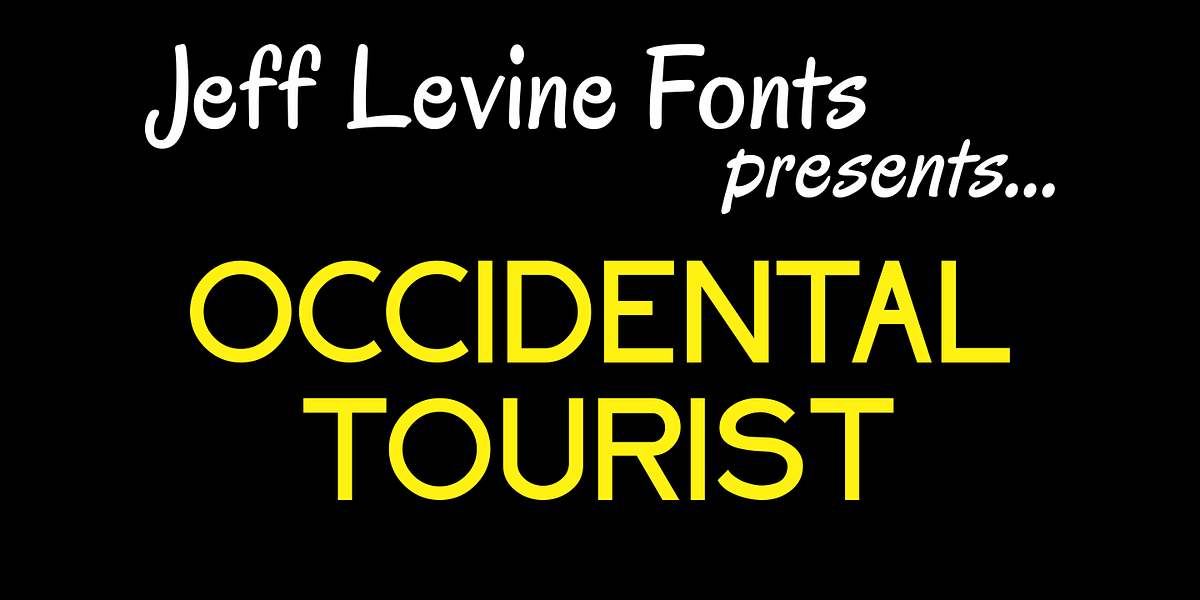
Occidental Tourist JNL
Occidental Tourist JNL is based on a set of die-cut cardboard letters used by teachers. They were primarily found on classroom bulletin boards or felt boards.
The font’s name is a pun on the movie The Accidental Tourist.